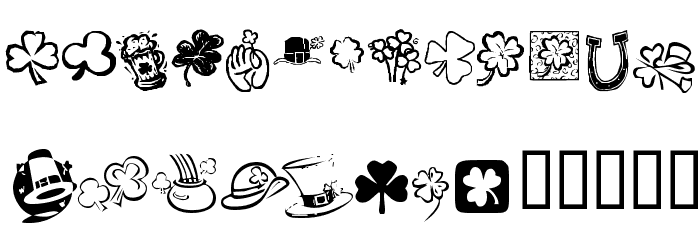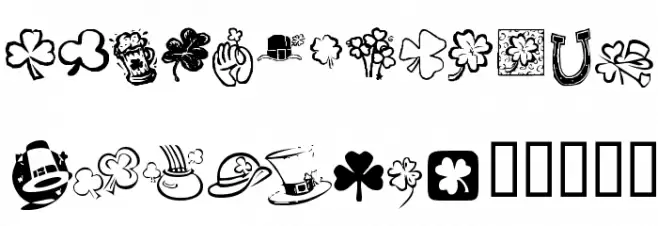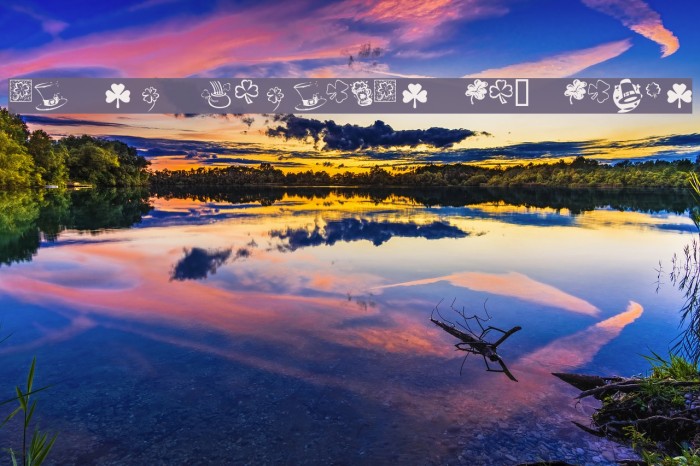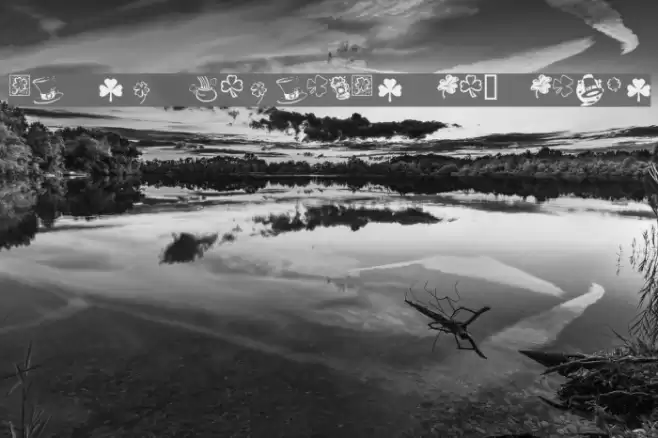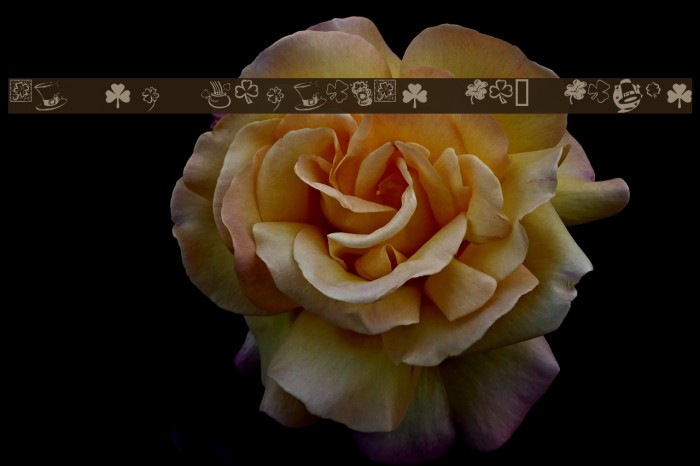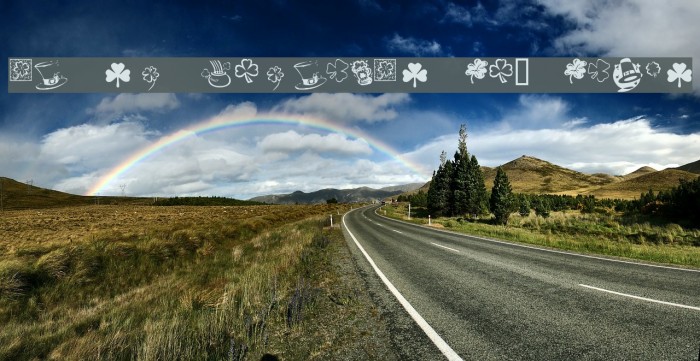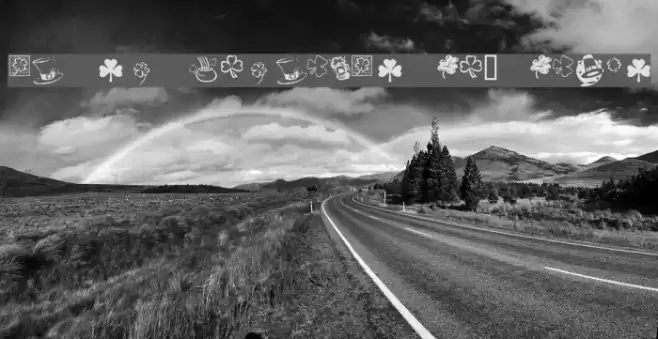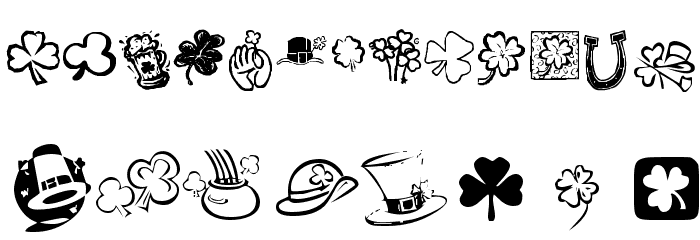
KR St Patricks Day Dings Font
This is a decorative font featuring a variety of St. Patrick's Day-themed dingbats. The characters include symbols such as shamrocks, leprechaun hats, pots of gold, and horseshoes, all rendered in a playful and whimsical style. The designs are bold and graphic, with a mix of solid and outlined elements that create a lively and festive appearance. Each symbol is distinct, with some incorporating intricate details, while others are more simplistic. The overall look is celebratory and perfect for adding a touch of Irish charm to any project.
A festive dingbat font with St. Patrick's Day symbols like shamrocks and leprechaun hats.